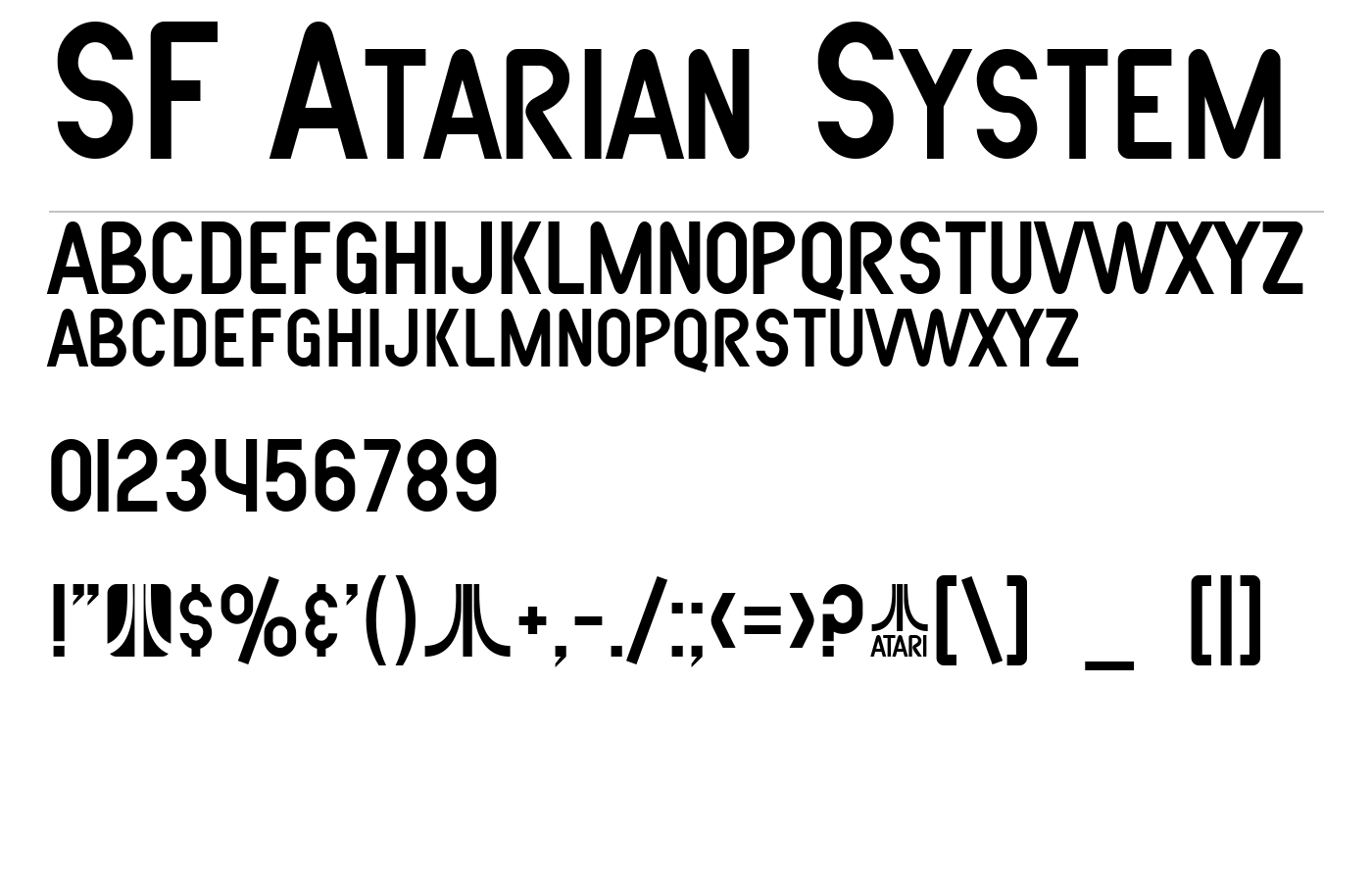
SF Atarian System is a condensed, geometric sans serif font with a clean and modern look, featuring medium stroke contrast and uniform line weights. Its uppercase-only style and distinct angular shapes give it a futuristic, tech-inspired personality, making it ideal for retro gaming, technology branding, and digital-themed designs. This font works well in logos, headlines, and user interfaces where a sleek, efficient, and slightly nostalgic atmosphere is desired.
SF Atarian System Font